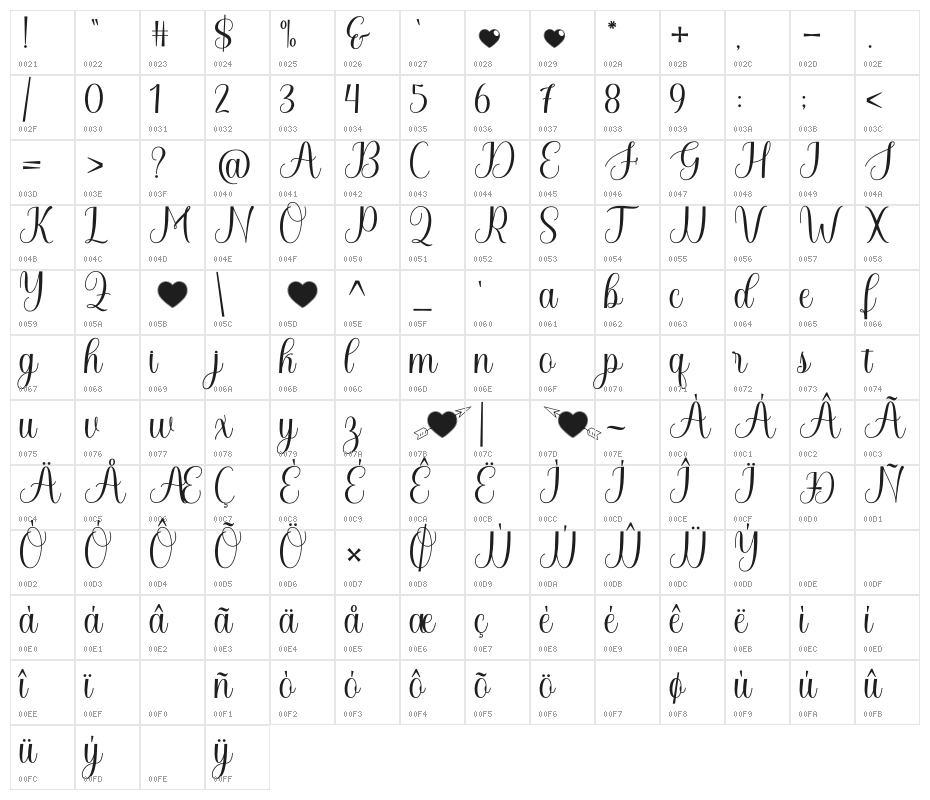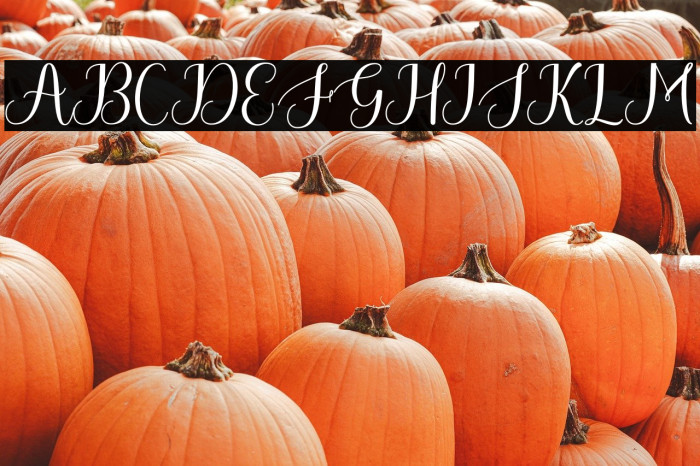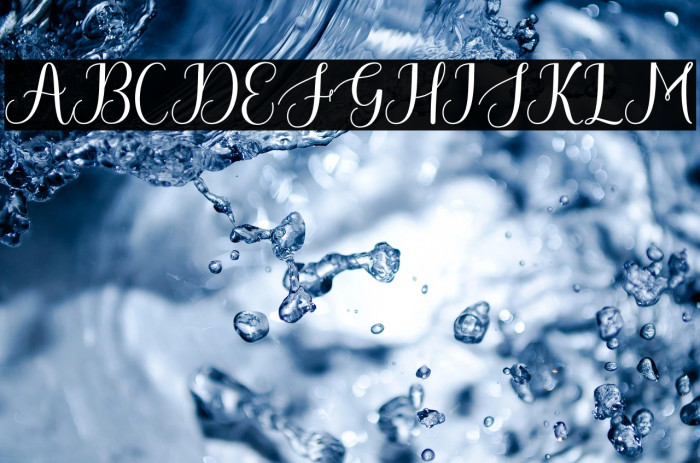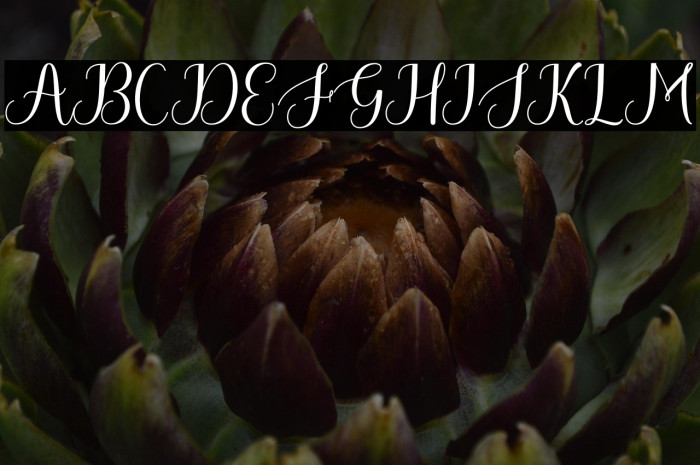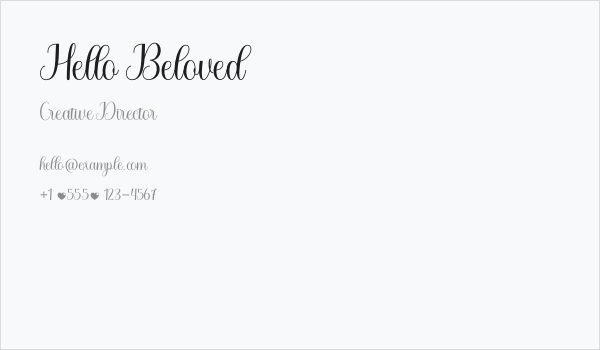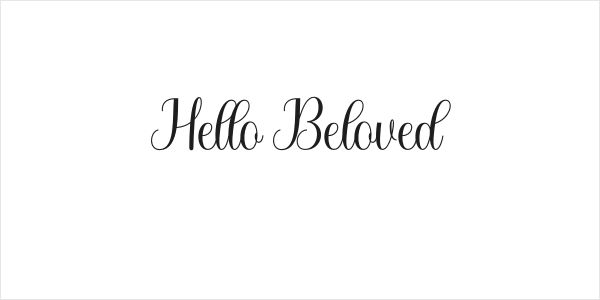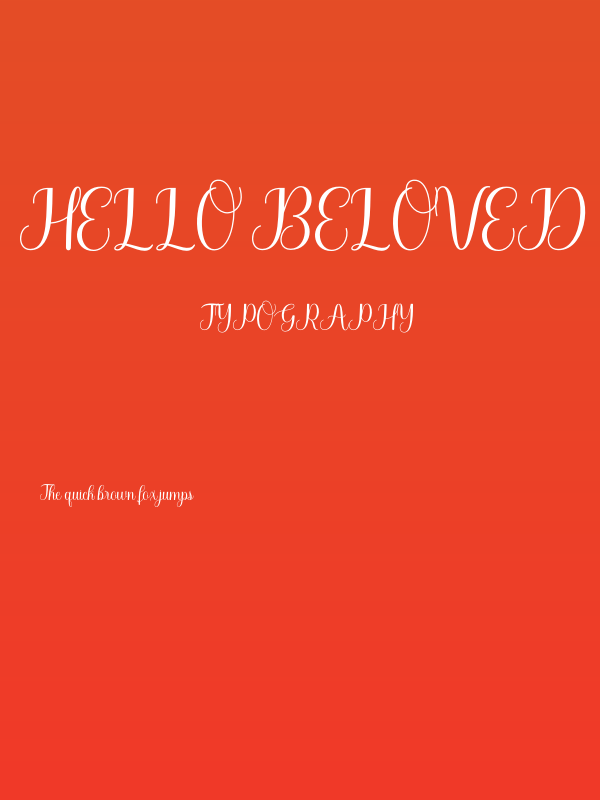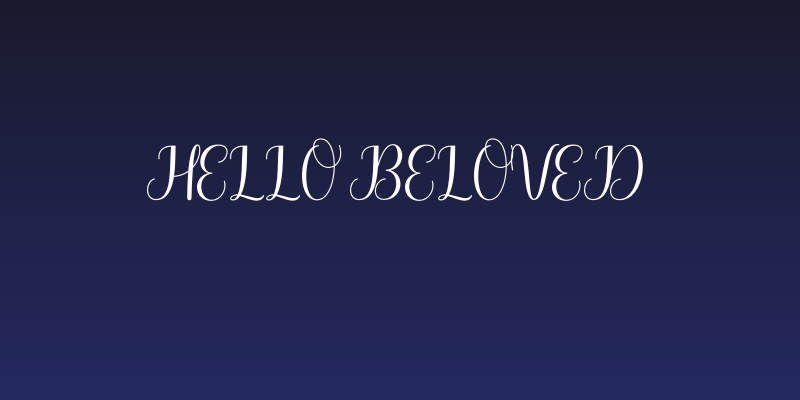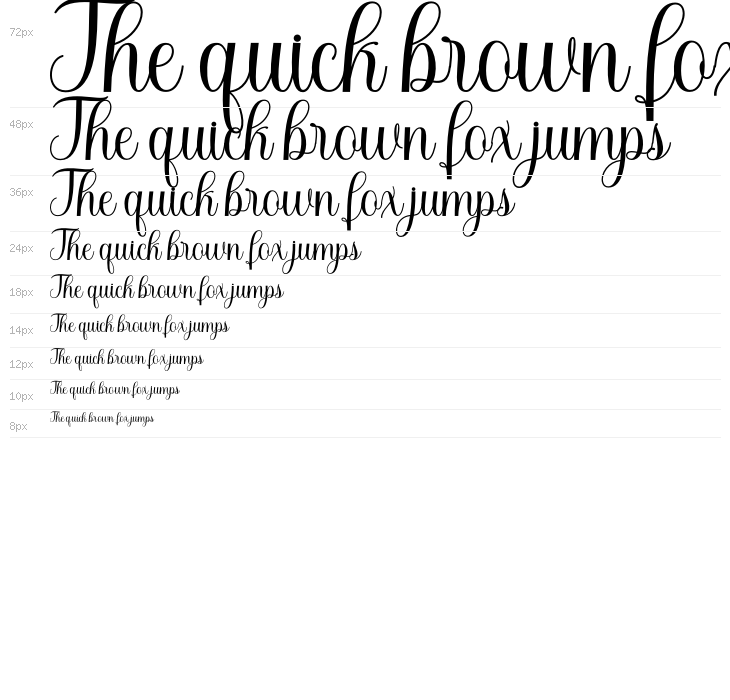
Hello Beloved Font
Hello Beloved Description
This font features an elegant and flowing script style, characterized by its smooth, cursive letterforms that exude a sense of sophistication and grace. The uppercase letters are tall and slender, with gentle curves and loops that add a touch of whimsy. The lowercase letters maintain a consistent flow, with some letters extending slightly below the baseline, enhancing the font's fluidity. The numerals are stylish and complement the overall aesthetic, while the special characters are designed with the same attention to detail, ensuring a cohesive look. This font is perfect for projects that require a touch of elegance and charm.
| Proposed Projects | Ideal for wedding invitations, greeting cards, branding, and elegant packaging. |